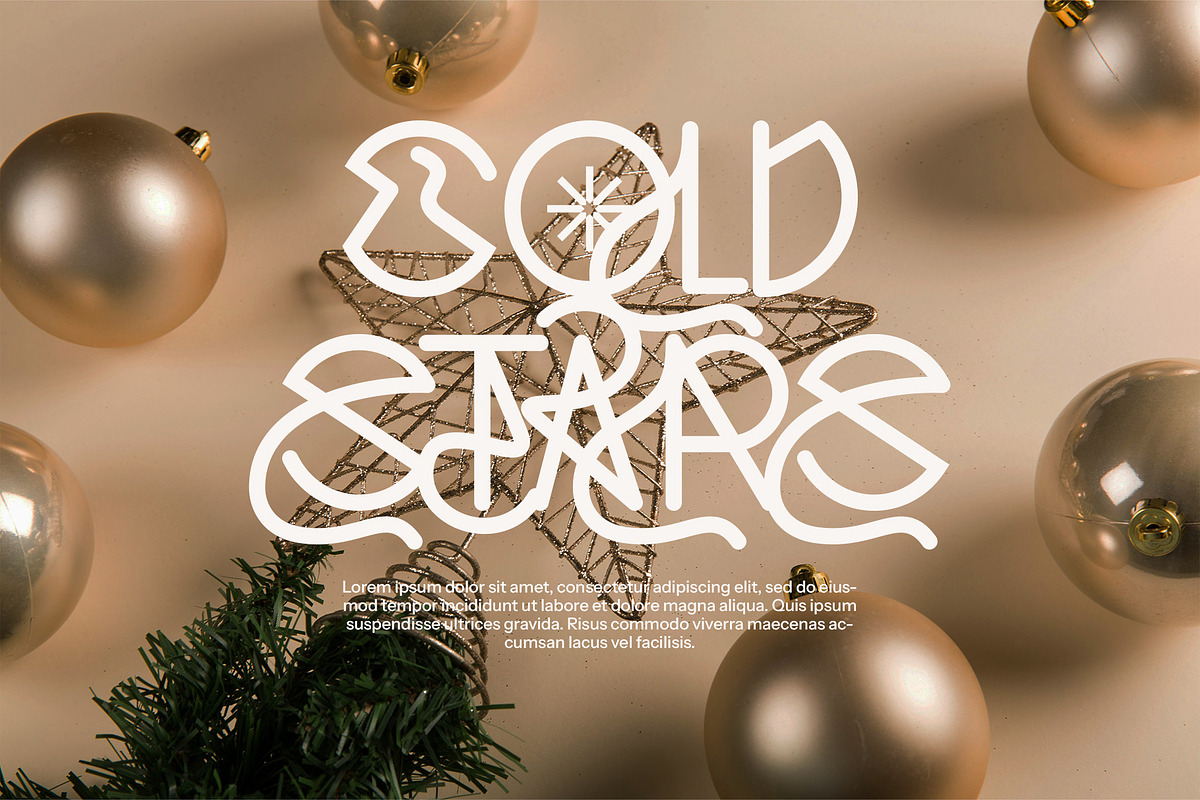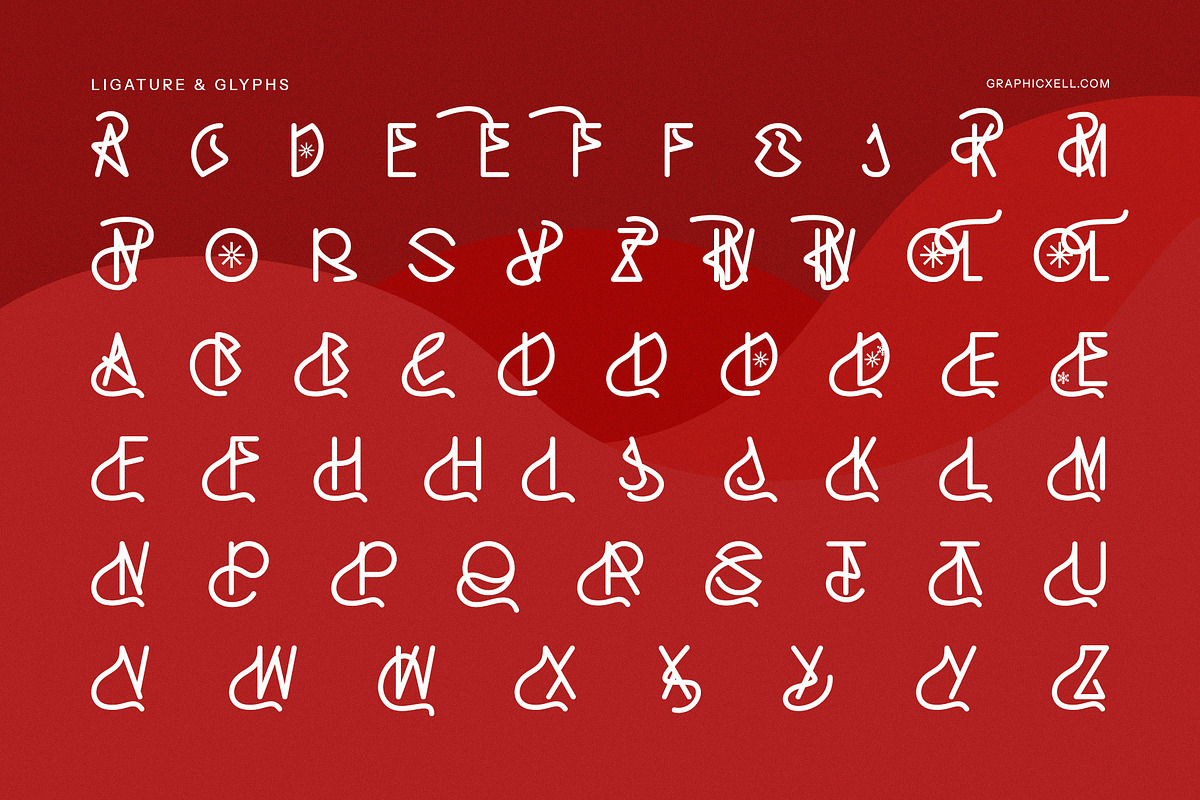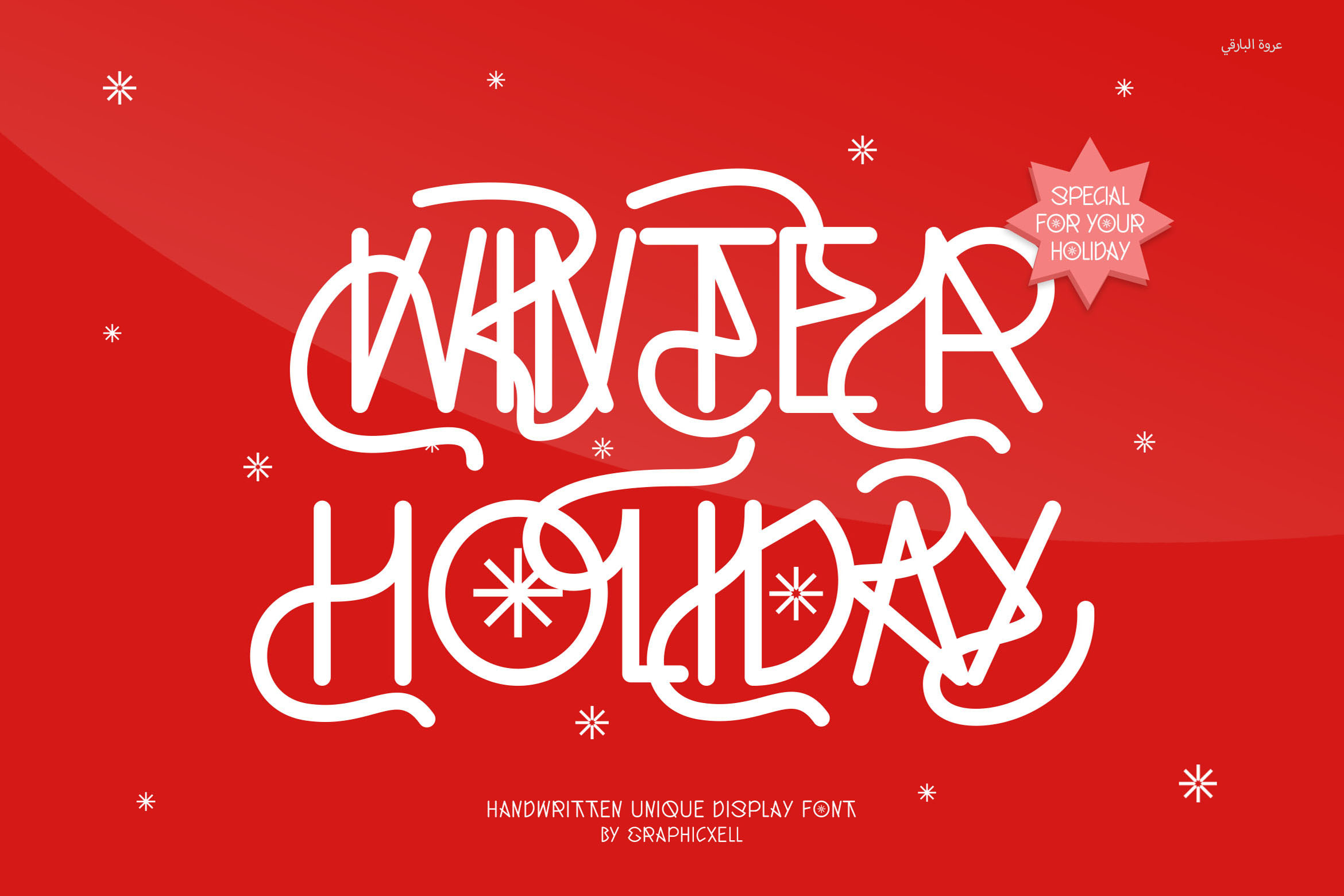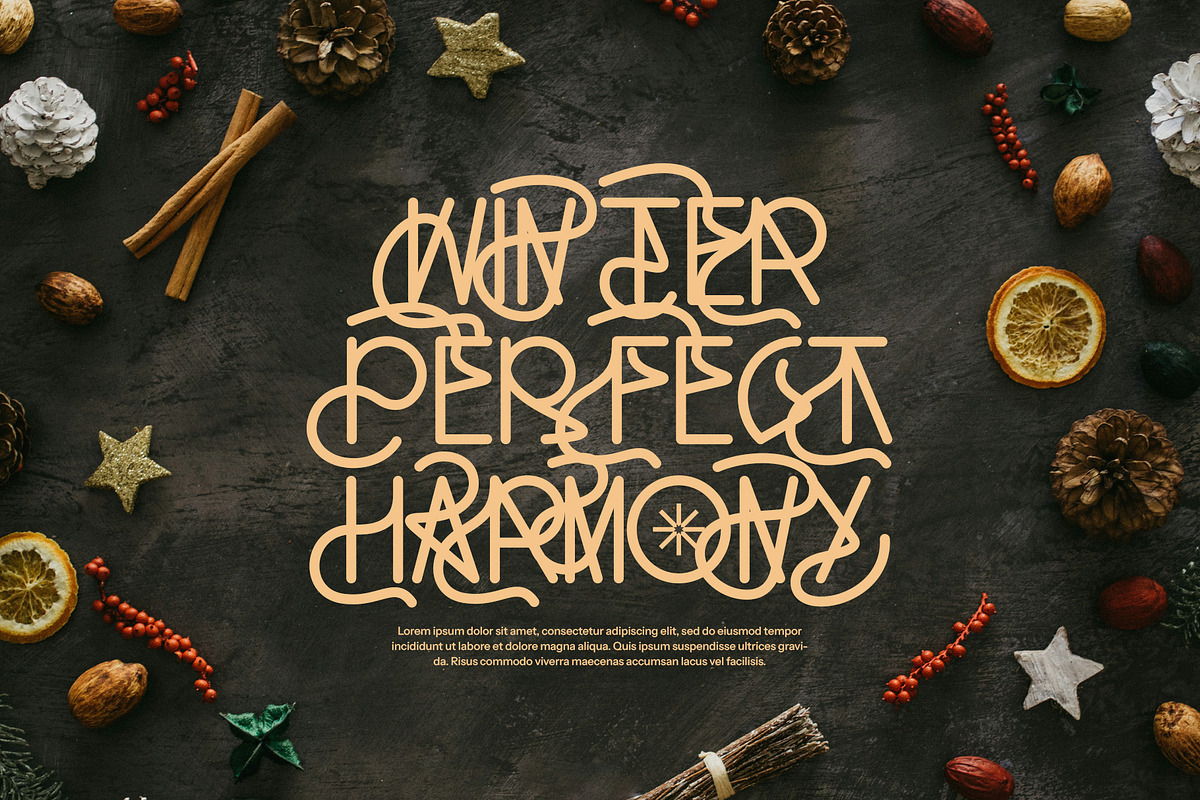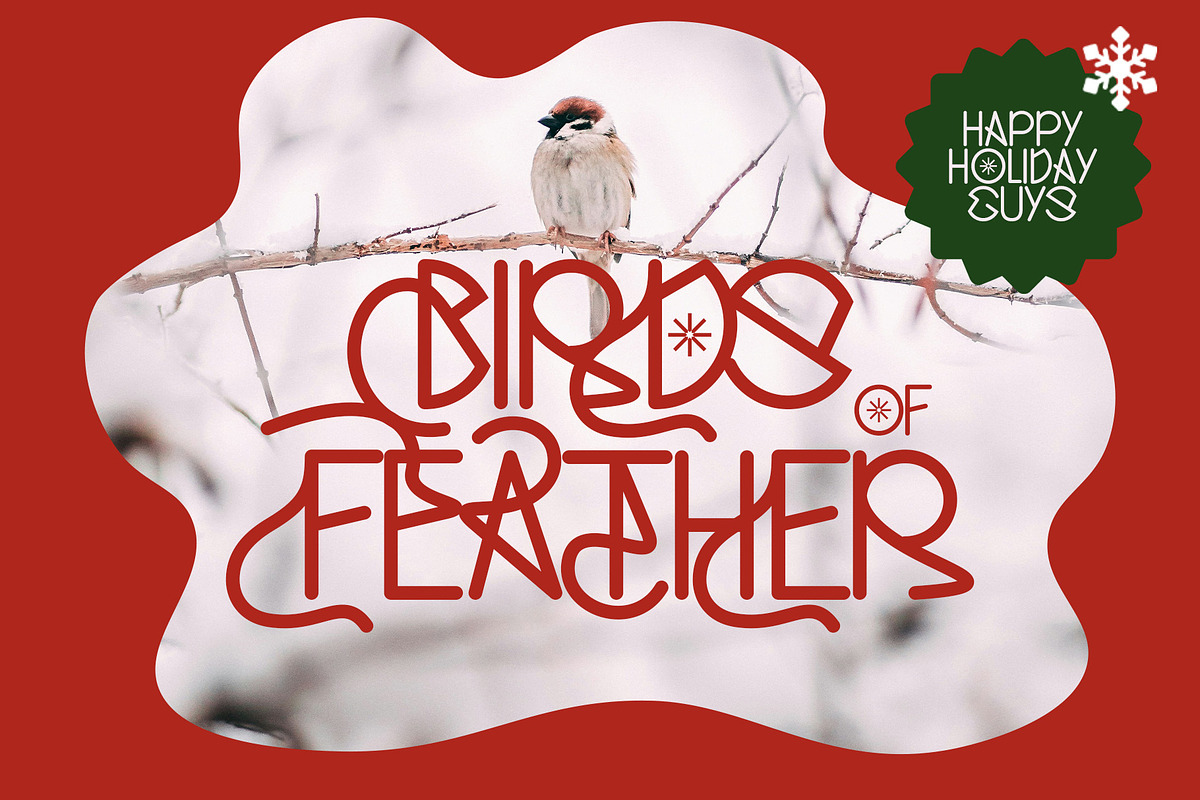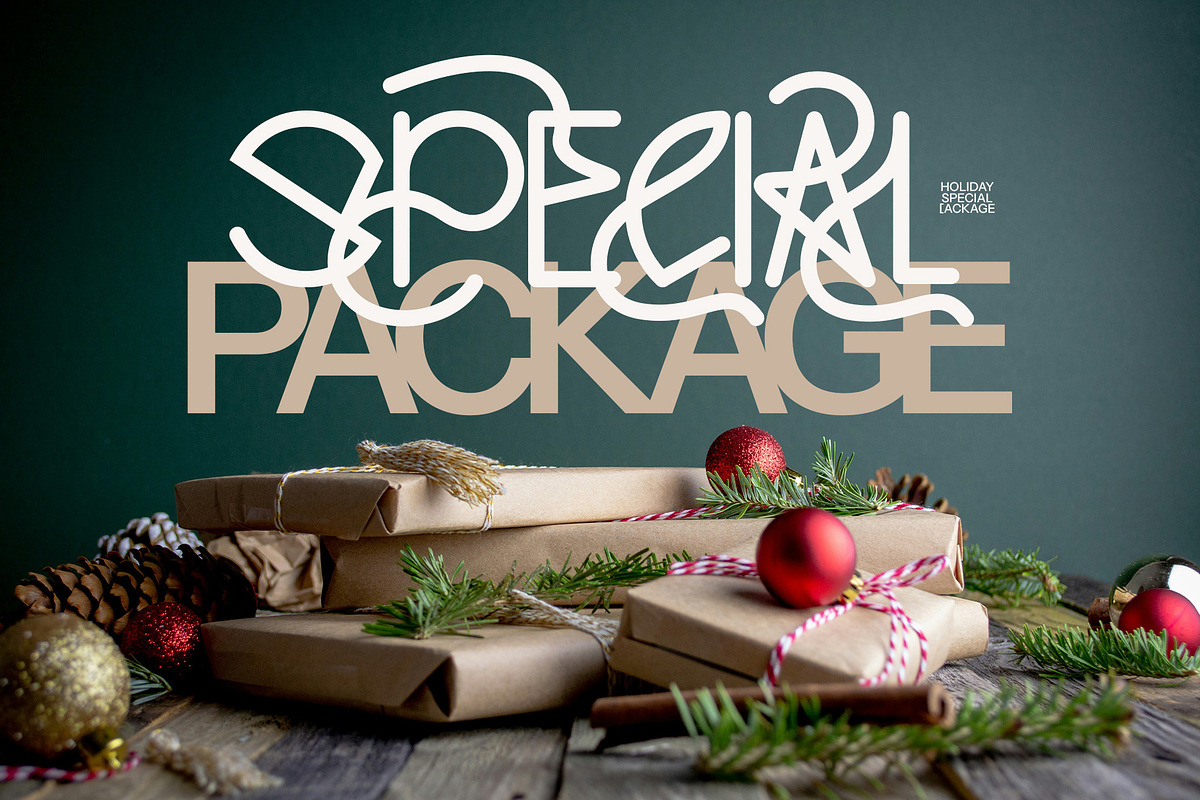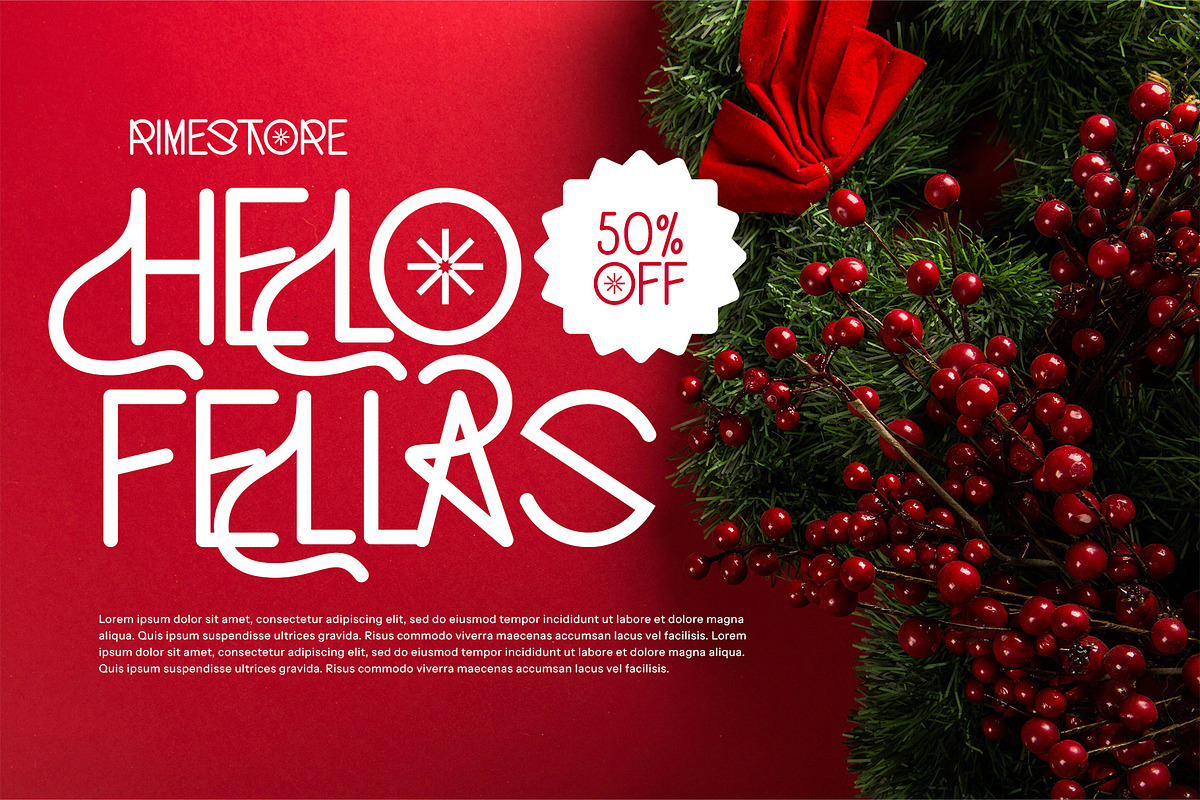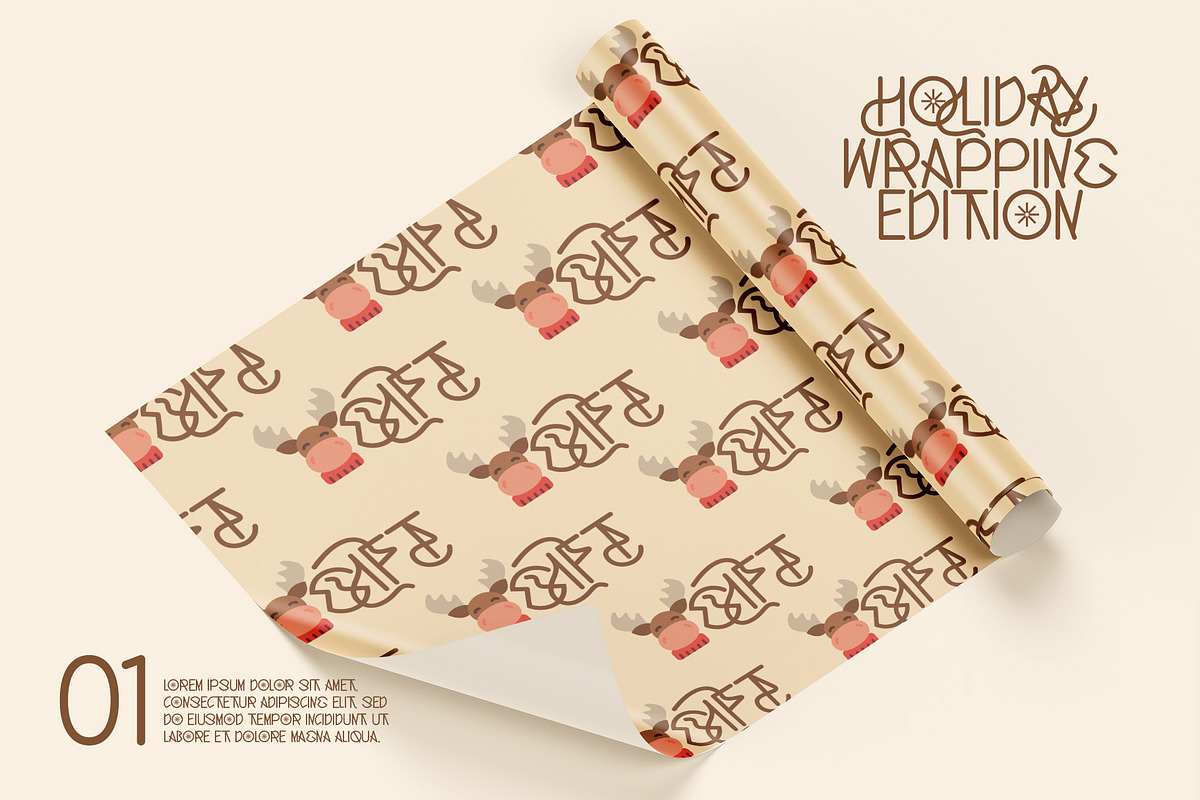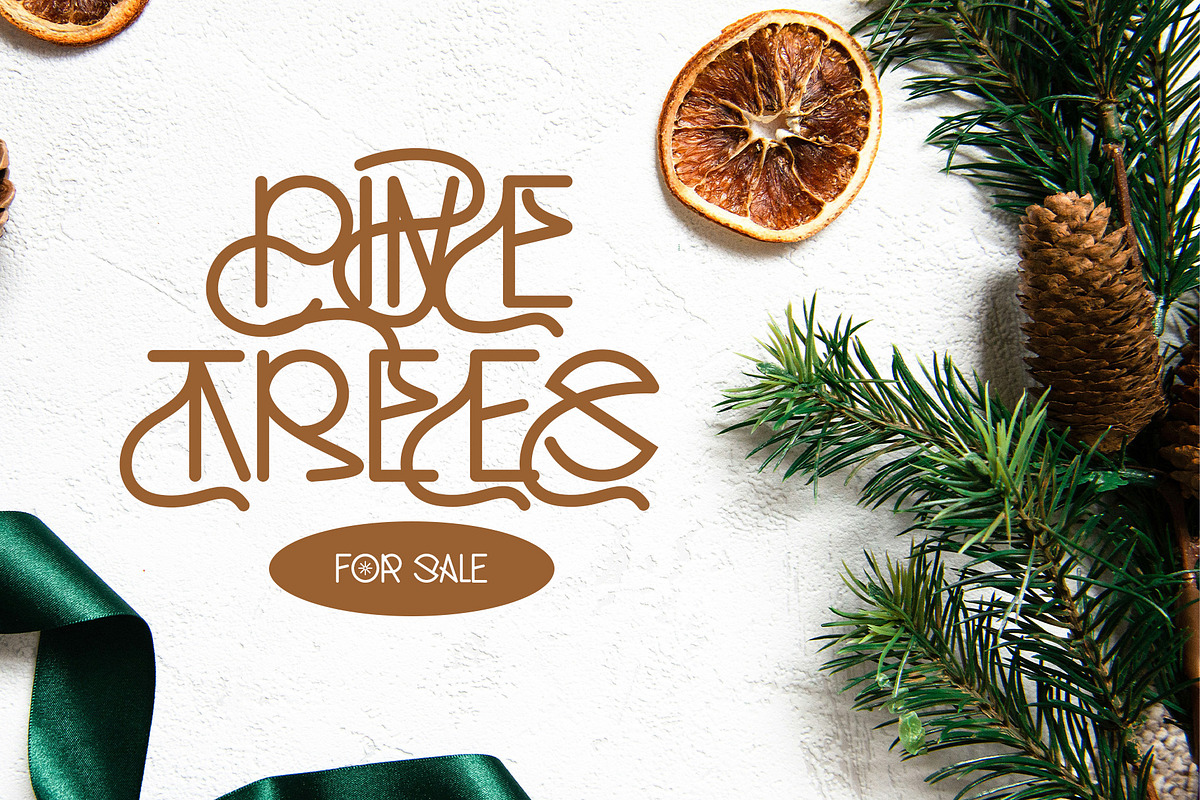
Winter Holiday Display Font
Winter Holiday Unique Display Font is a beautifully designed handwritten typeface, crafted to evoke the warmth and charm of the winter season. Featuring flowing, abstract curves and intricate details, this font is packed with unique alternates and ligatures that include festive elements like stars, snowflakes, and semicircular curves that resemble rope ties. These decorative flourishes give your designs a whimsical and celebratory feel, making it the perfect font for all winter holiday themes.
Whether you're working on designs for Winter, New Year, Valentine's Day, Halloween, or Black Friday, this font brings a touch of elegance and playfulness to your typography. The combination of delicate snow variations and seasonal motifs ensures it stands out for holiday promotions, event invitations, festive posters, and more. It’s ideal for creating memorable logos, branding, and typography for your projects, capturing the magic of the season.
The Winter Holiday Unique Display Font is also a great choice for Canva templates, magazines, product packaging, advertisements, and social media designs. Its charming and versatile style makes it suitable for a wide range of uses, from product labels and film titles to food packaging and advertising campaigns. This font is perfect for designers seeking a unique typeface with a seasonal flair that adds personality to any project.
Perfect for branding, posters, layouts, and more, Winter Holiday Unique Display Font will give your designs a festive, joyful touch and make your winter-themed creations truly stand out.